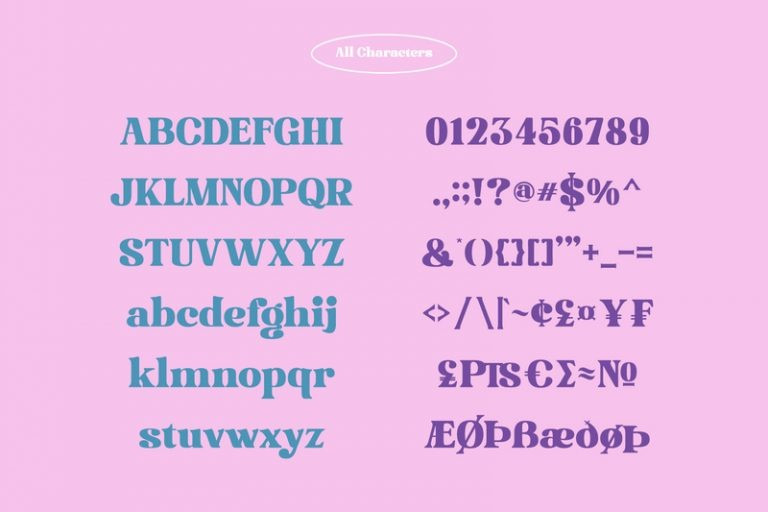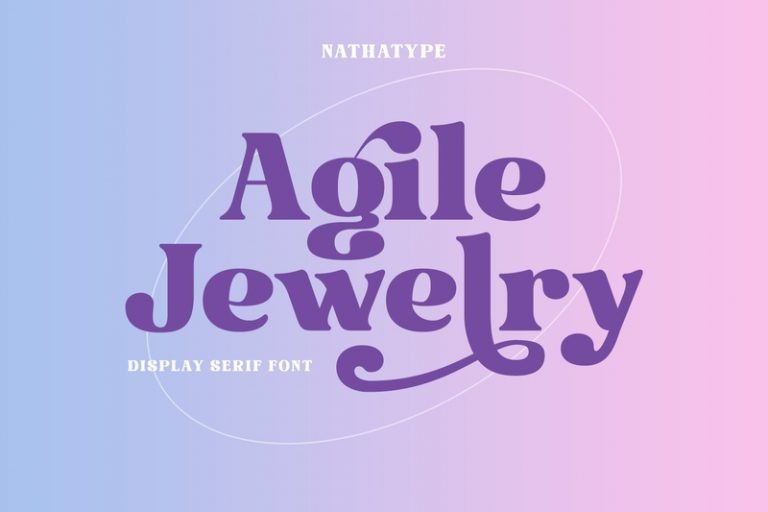
Agile Jewelry Font
Agile Jewelry Serif Font a stylish, modern display serif font to give you informal, modern impressions. The characteristics of this font are the extra hooks on the letters’ edges and some of the letters have curvy ending wipes. The thick and thin lines on every letter are clearly visible. For a legibility reason, apply this font for big-sized texts instead of the body texts.